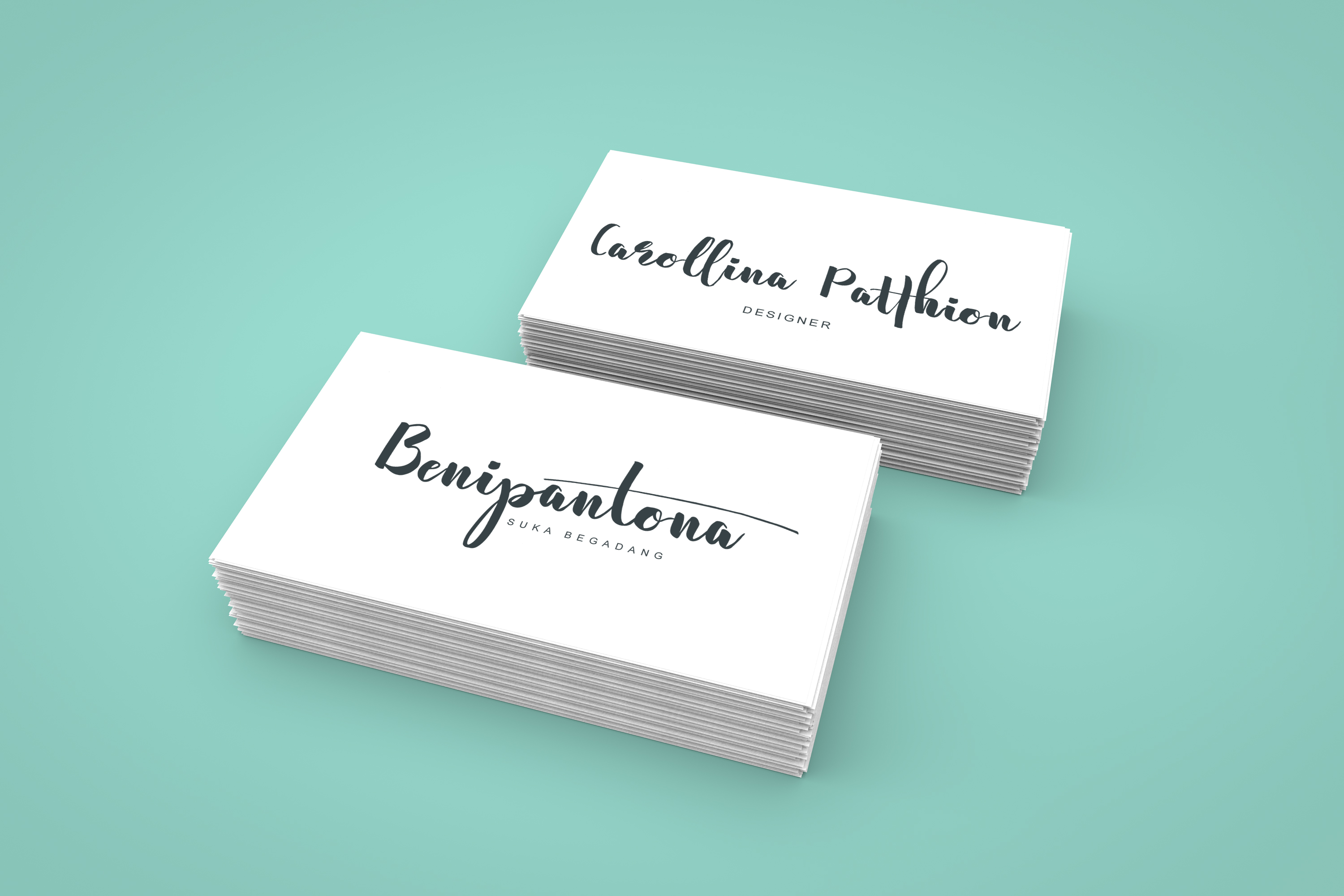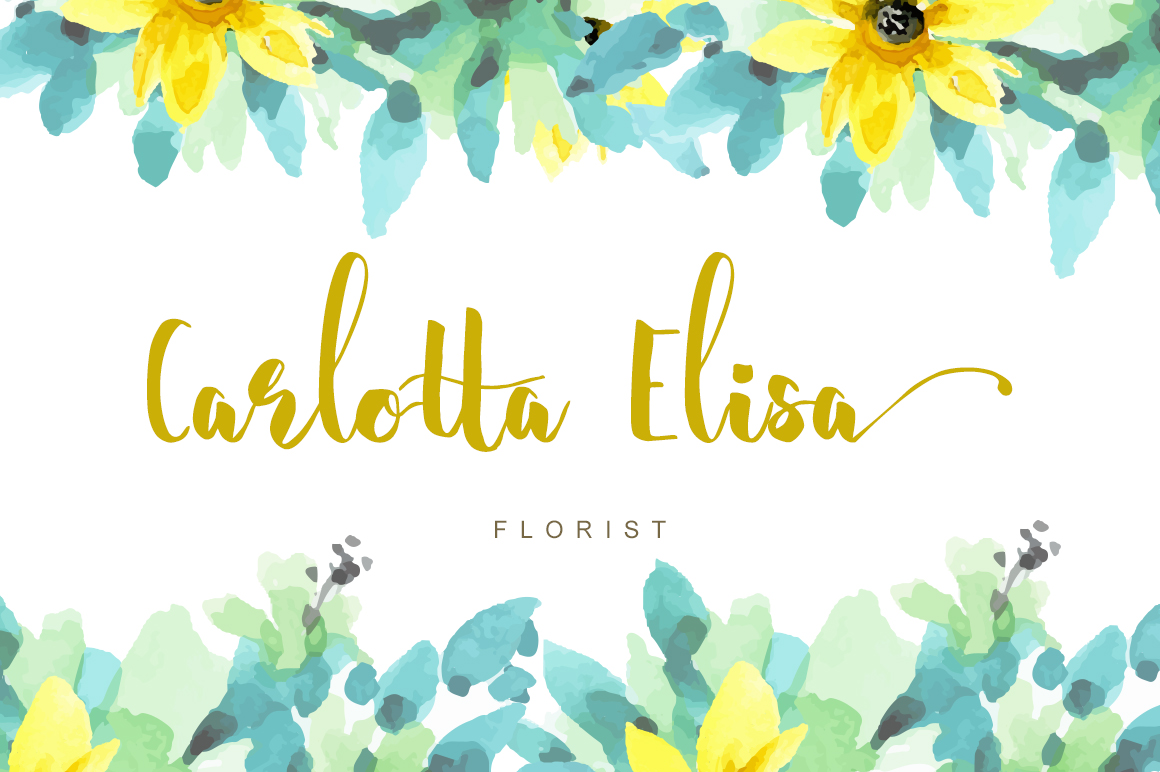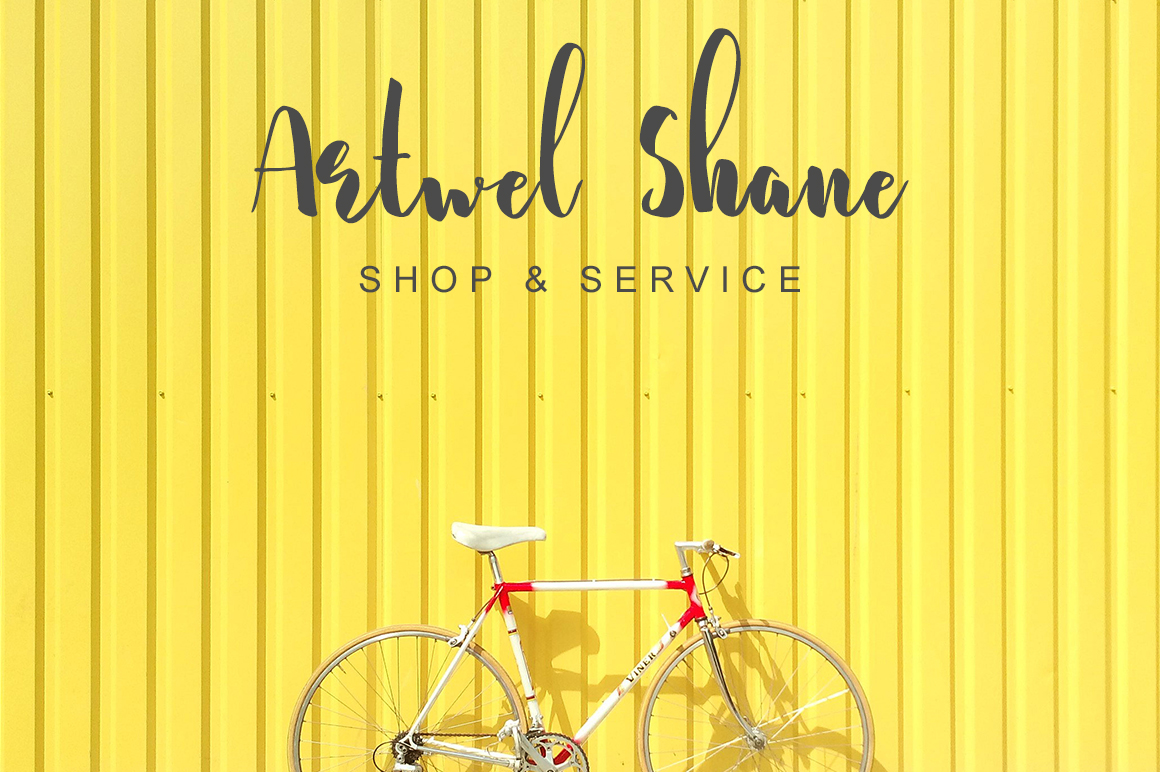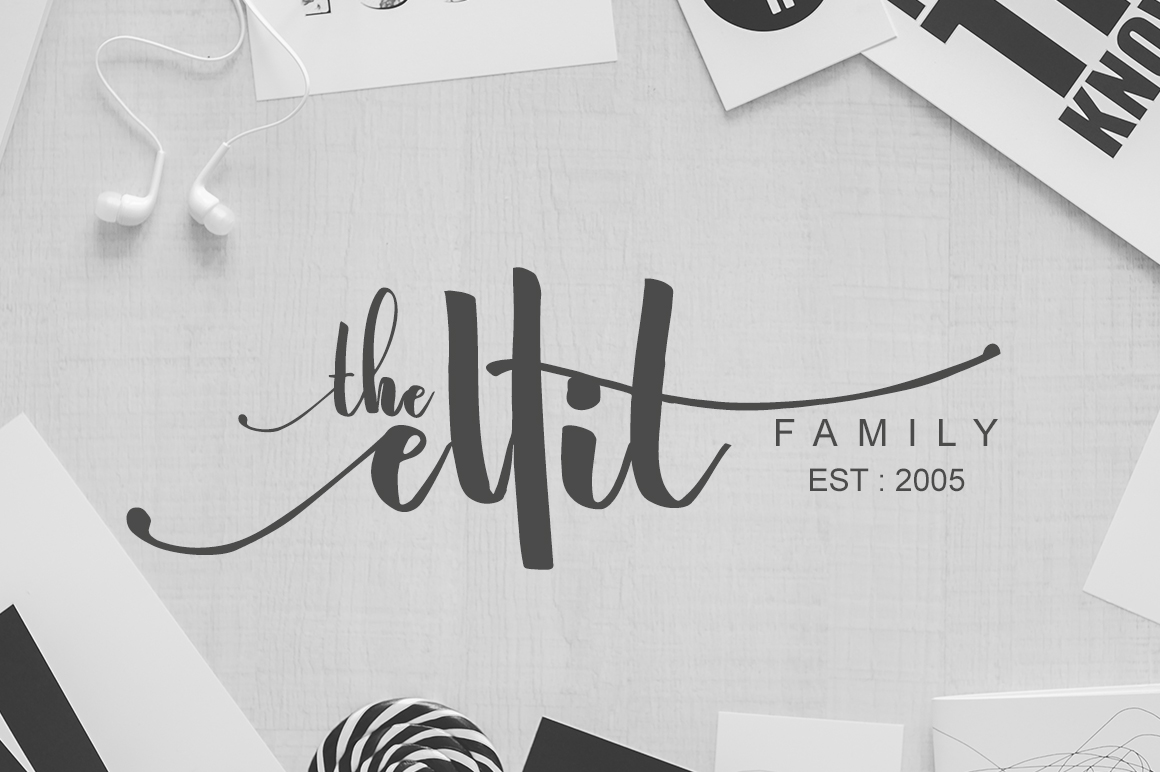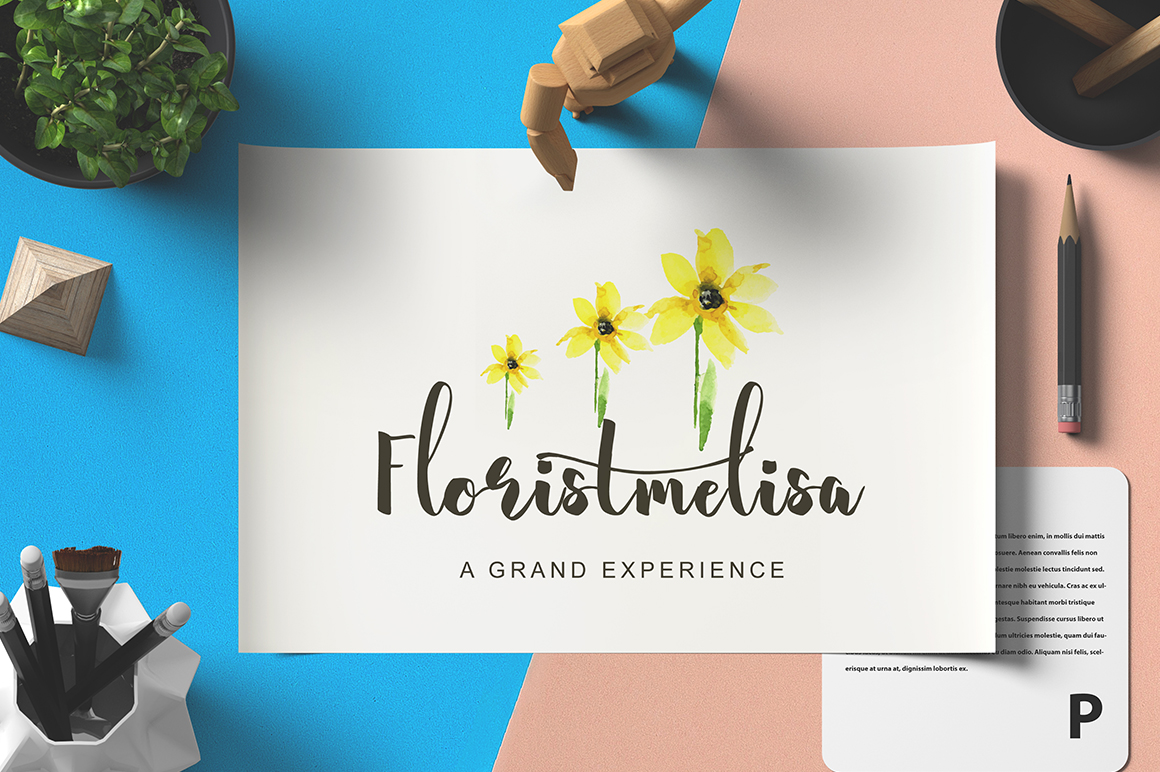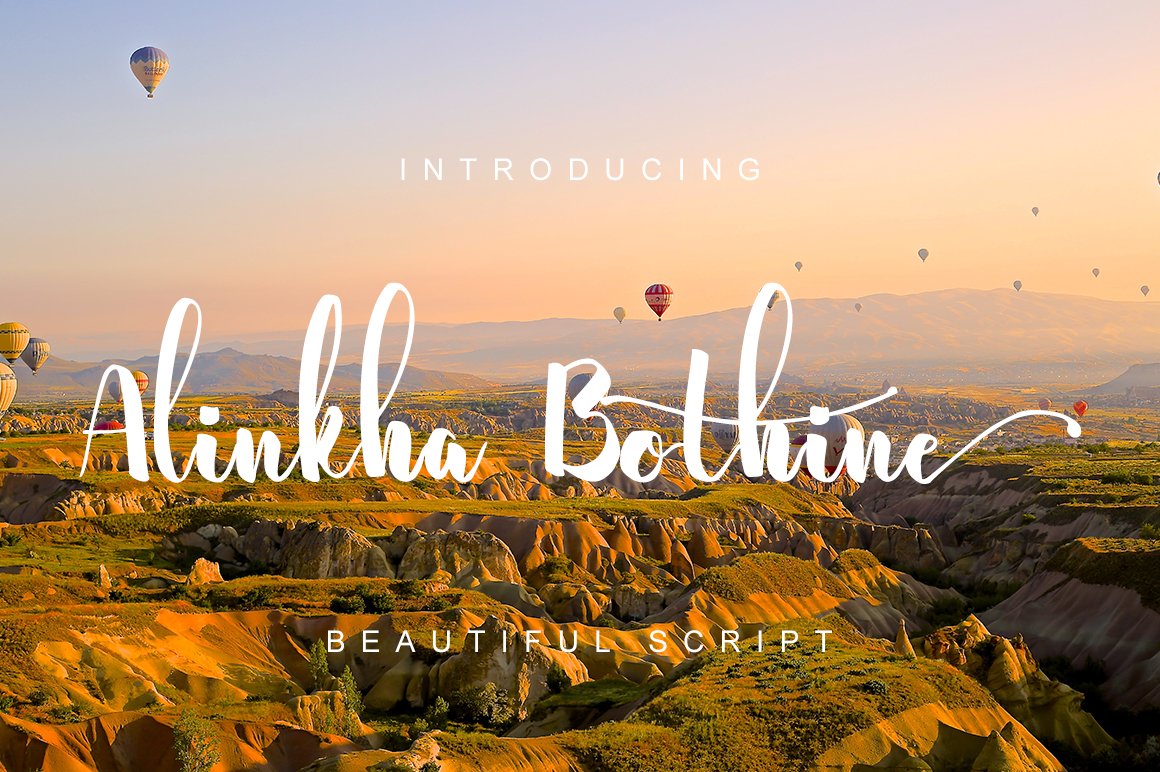
The Perfect Blend of Classic Elegance: Unveiling the Alinkha Bothine Font
As creatives, we’ve all been there – staring at a blank canvas, searching for the perfect combination of words and typography to bring our vision to life. And then, it happens. Inspiration strikes, and we’re left wondering how we ever managed without that one special font. For designers, the quest for the perfect script font is a never-ending journey, until now.
Enter the Alinkha Bothine Font, a stunning handmade script font that exudes classic style and sophistication. Crafted with love and attention to detail, this font is perfect for designers looking to add a touch of elegance to their projects. Whether you’re working on a wedding invitation, a branding project, or a beautiful book cover, the Alinkha Bothine Font is sure to elevate your design to the next level.
- Font Family: Alinkha Bothine is a unique, handwritten font family consisting of 6 styles.
- Unique Characteristics: Alinkha Bothine features a distinctive, handwritten style with varied line widths and subtle imperfections, giving it a personal and creative touch.
Alinkha Bothine Font Review
I recently had the chance to work with the Alinkha Bothine font, and I must say it’s been an interesting experience. Here’s my honest review of this font.
- The Alinkha Bothine font has a unique and quirky feel to it, which can add a lot of character to your design.
- The font is highly customizable, with a wide range of weights and styles to choose from.
- The font is also very legible, even at small sizes, which is a big plus for designers who need to work with tight spacing constraints.
- The font can be a bit too quirky for some projects, and may not be suitable for more conservative or traditional designs.
- The font may not be as polished or refined as some other fonts on the market.
- The font’s uniqueness can also be a drawback, as some designers may find it too distracting or overwhelming.
The Alinkha Bothine font is a solid choice for designers who are looking for a unique and quirky font to add some personality to their designs. While it may not be suitable for every project, it’s definitely worth considering for projects that need a bit of flair and personality. With some careful consideration and customization, the Alinkha Bothine font can be a valuable addition to any designer’s toolkit.
The Alinkha Bothine Font is ideal for creative projects that require a unique and elegant touch. Use it for:
– Fashion and beauty design
– Artistic and creative writing projects
To get the most out of the Alinkha Bothine Font, experiment with different font sizes, colors, and styles to create visually appealing combinations. Use it in conjunction with other creative elements to add a touch of sophistication to your designs.